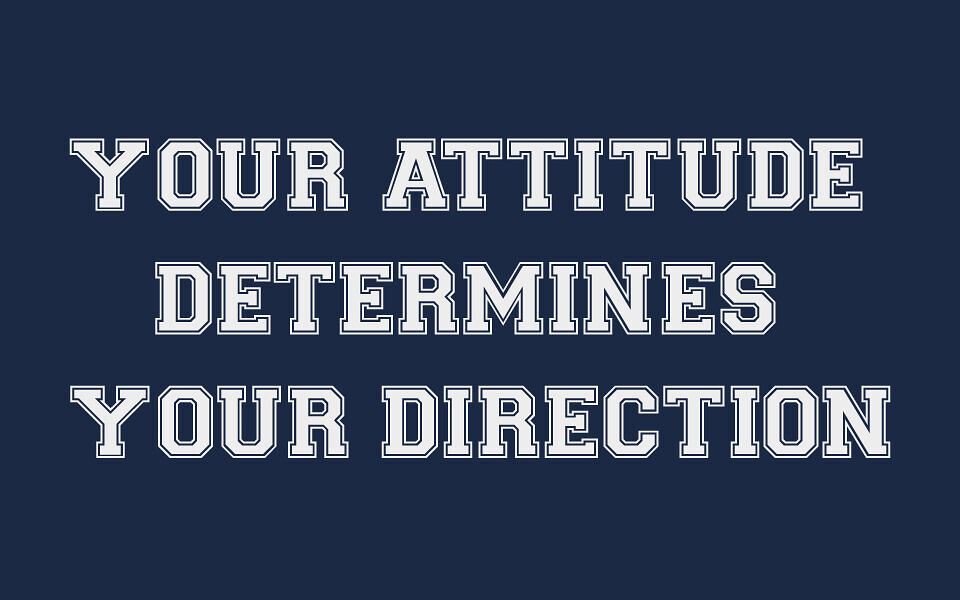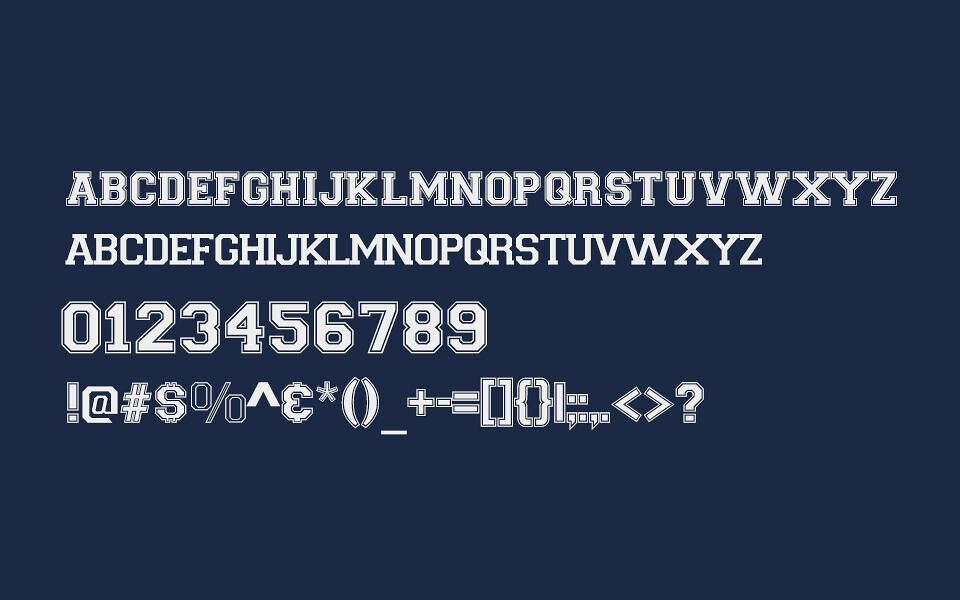
Varsity Font
The Varsity is a bold, block-style typeface with an athletic flair. Rendered in all-caps, it features thick, uniform strokes and sharp, clean edges, giving it a sturdy, three-dimensional appearance.
The letters have a subtle outline, enhancing their depth and impact. This classic, collegiate-inspired font exudes strength and tradition, often used in sports branding and team logos. Its robust, structured design makes it perfect for conveying energy and determination in various graphic applications.